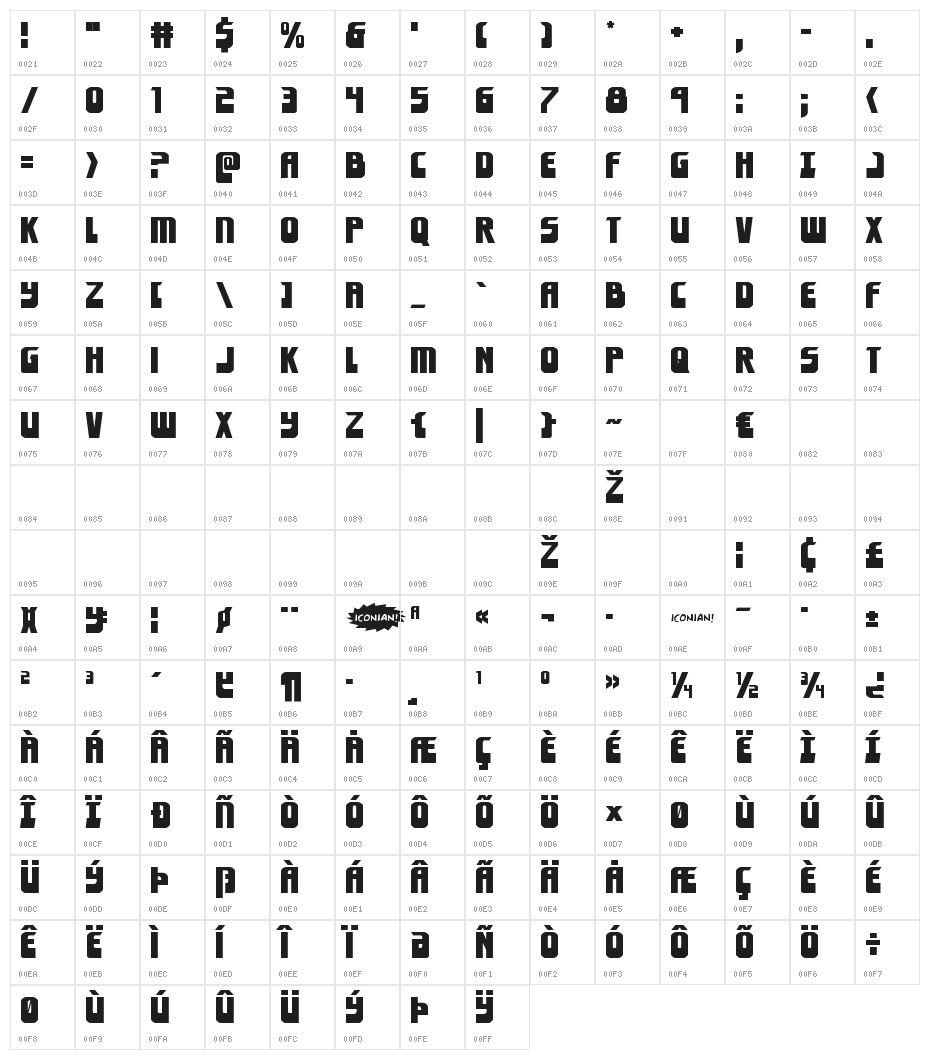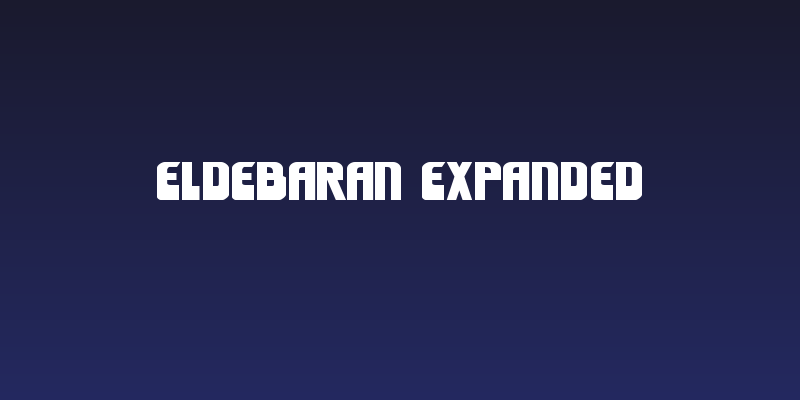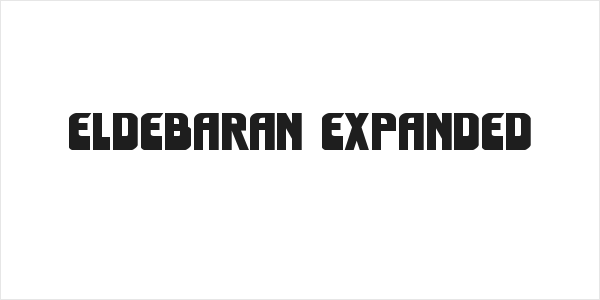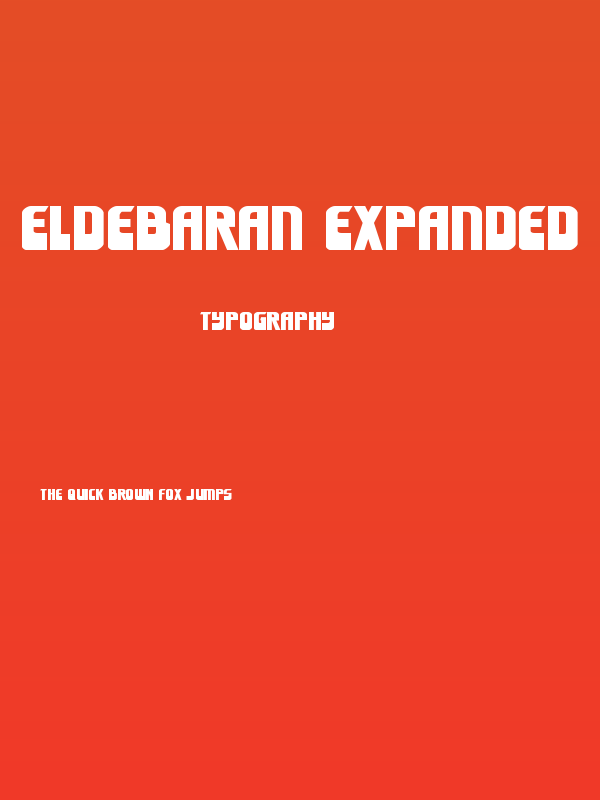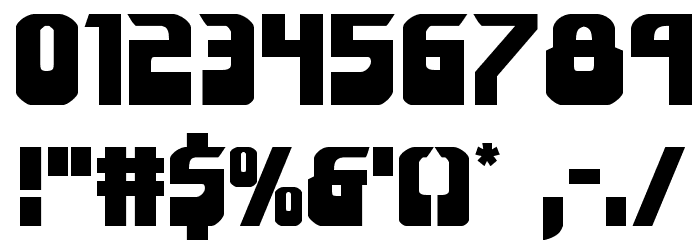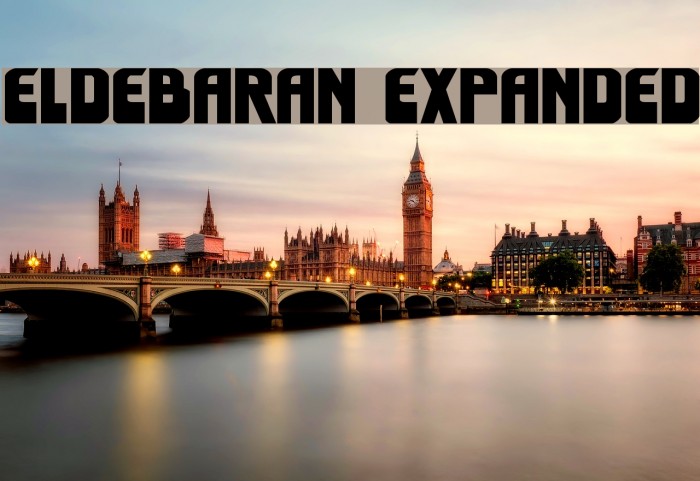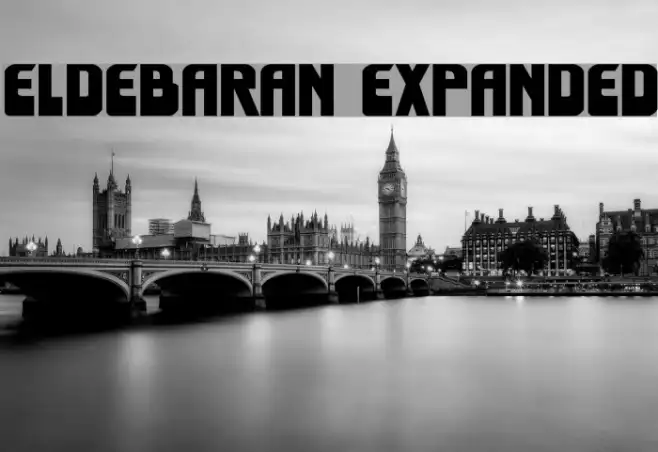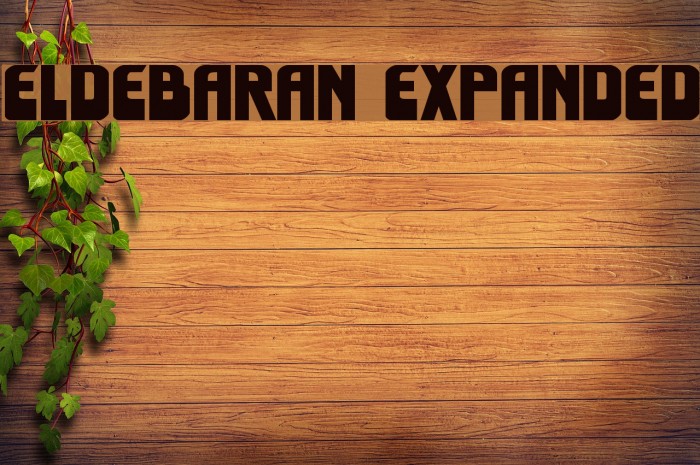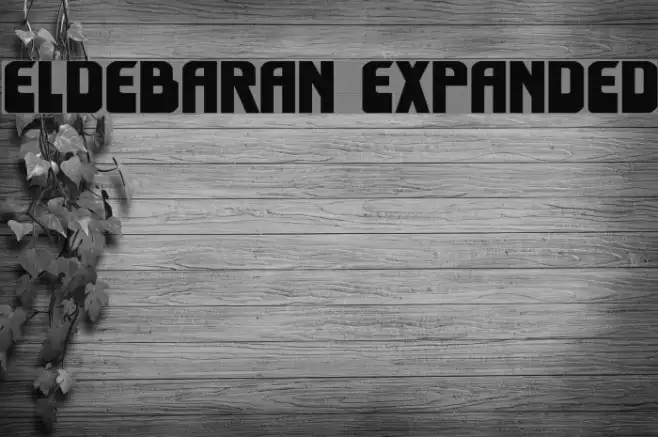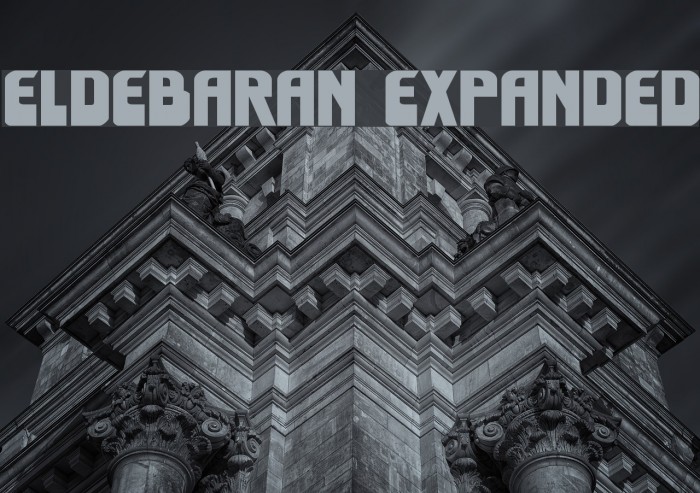
Eldebaran Expanded Font
Eldebaran Expanded Description
This font features a bold and geometric style with a distinctly modern and futuristic appearance. The characters are constructed with strong, angular lines and a blocky structure, giving them a commanding presence. The uppercase and lowercase letters maintain a consistent width, contributing to a uniform and cohesive look. The numbers and special characters are designed to match the boldness and geometric nature of the alphabet, ensuring a seamless integration across all elements. The font's expanded width enhances its readability and makes it suitable for impactful headlines and attention-grabbing designs.
| Proposed Projects | Ideal for futuristic branding, tech-related projects, video game titles, and sci-fi themed posters. |